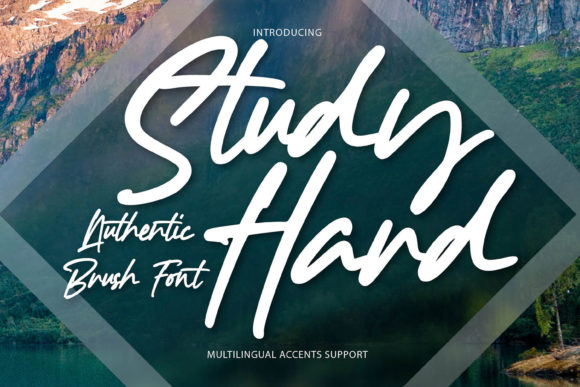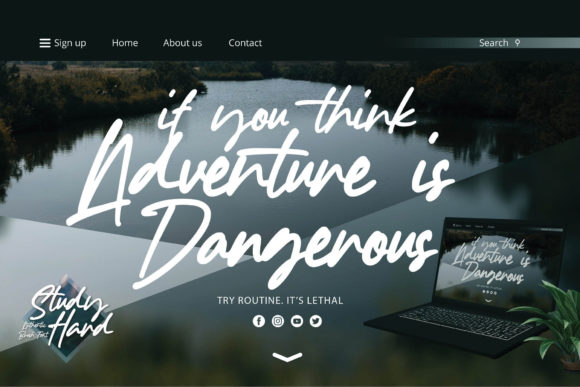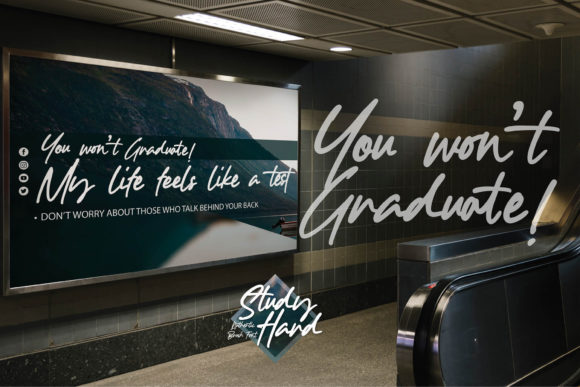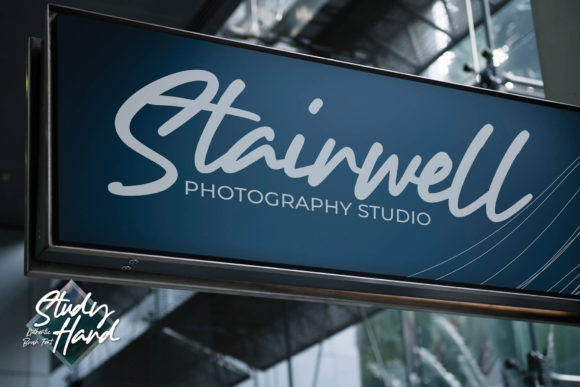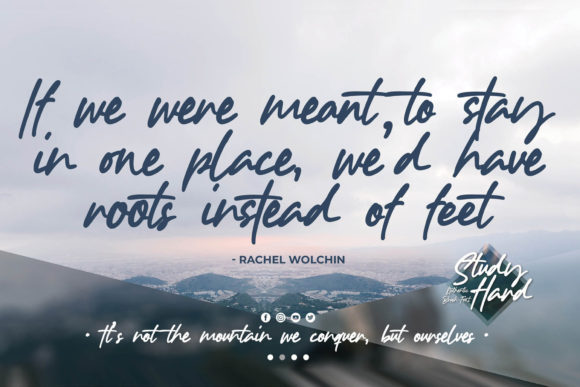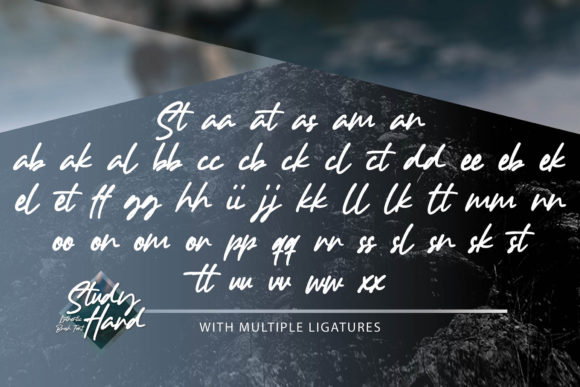
Study Hard Font
About Study Hard Font
Study Hard is a cool, paint brushed and urban styled handwritten font. This font is suitable for designs such as t-shirts, sportswear, logos, advertisements, clothing, and more.